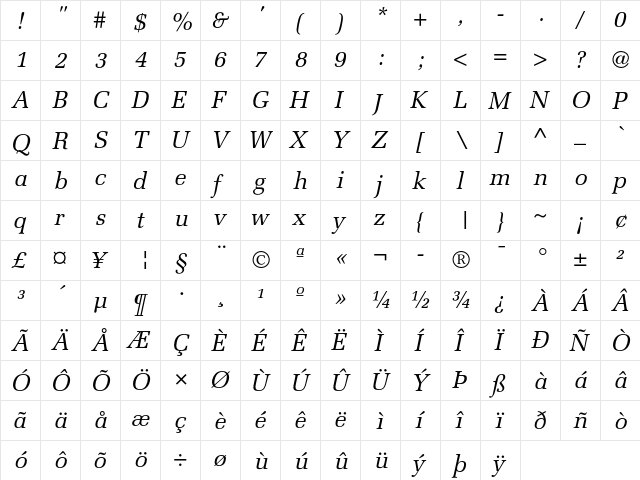
Melior Italic Font Preview
Melior Italic
Melior Italic Font Details
Design Context for Melior Typeface
Melior takes a measured approach to typography — its balanced proportions and neutral character make it a reliable workhorse for both digital and print work. The dynamic lean of this cut emphasises speed and emphasis in any layout.
Pro Tip: Use Melior for emphasis, pull quotes, and subheadings where its slanted energy can add rhythm to the layout.